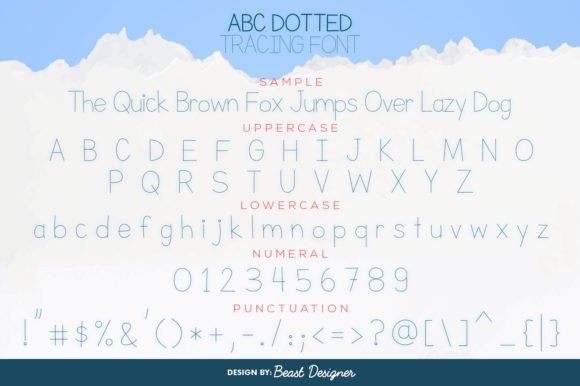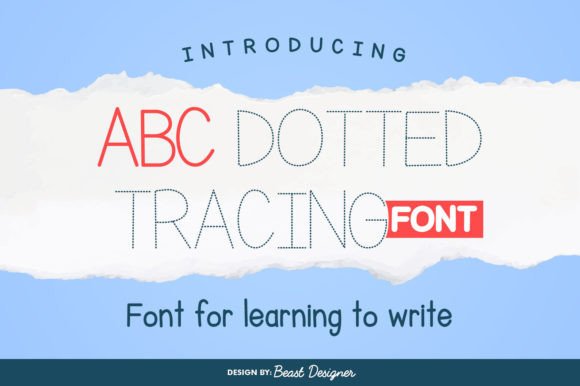
The ABCs of Creativity: A Deep Dive into the ABC Dotted Tracing Font
I still remember the day I stumbled upon the ABC Dotted Tracing Font while working on a project for a children’s educational app. I was on a mission to find the perfect typeface that would not only be fun and engaging but also provide a learning experience for young kids. As a designer, I know how crucial it is to have the right tools to bring your vision to life, and in this case, the right font was key. After hours of searching, I finally found the ABC Dotted Tracing Font, and it was love at first sight! ✨
• ✅ Easy to read and understand: The clear, dotted outlines of each letter make it simple for young learners to follow and practice their handwriting.
• ✨ Versatile: This font is perfect for a variety of educational materials, from worksheets and activity sheets to apps and games.
• 🤩 Fun and engaging: The dotted lines add a playful touch, making learning fun and interactive for kids.
While the ABC Dotted Tracing Font is an excellent tool, there are a few things to keep in mind: ⚠️
• ⚠️ Limited use cases: This font is specifically designed for early childhood education and handwriting practice, so it may not be suitable for other design projects.
• 🤔 May not be suitable for older kids or adults: The font’s playful and simplistic design may not appeal to older kids or adults looking for a more sophisticated typeface.
The ABC Dotted Tracing Font was created with the intention of making handwriting practice fun and engaging for young learners. The designer, a passionate advocate for early childhood education, aimed to create a font that would not only be educational but also visually appealing. The result is a typeface that has become a staple in many educational materials and apps.
Font Name Abc Dotted Tracing Font
Author Beast Designer
A: The ABC Dotted Tracing Font is specifically designed for early childhood education and handwriting practice.
Q: Is the ABC Dotted Tracing Font suitable for older kids or adults?
A: While the font can be used for older kids or adults, its playful and simplistic design may not be suitable for all audiences.